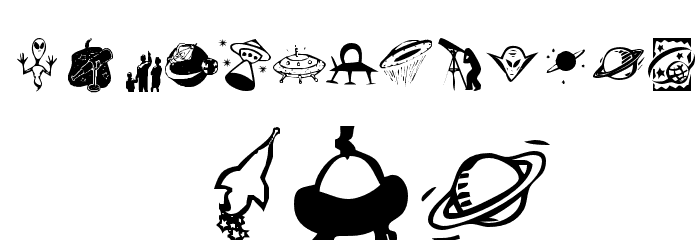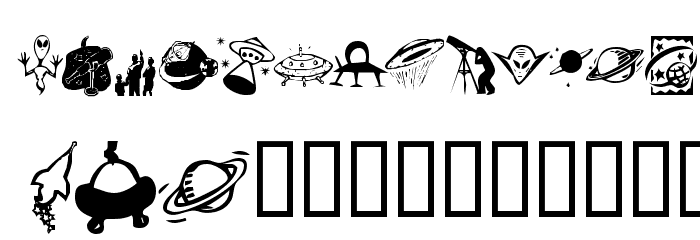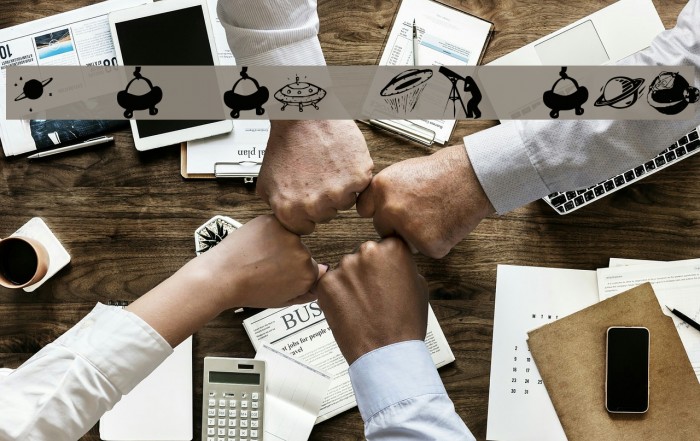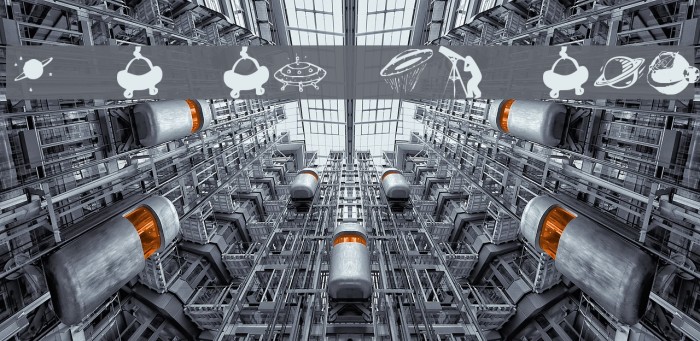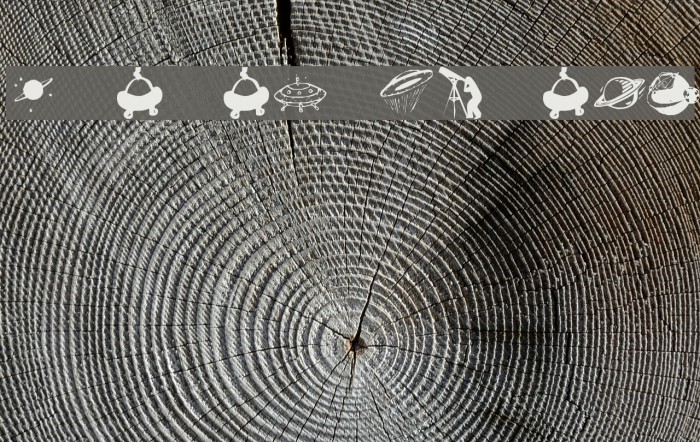
KR Out Of This World Font
This decorative font features a collection of whimsical, space-themed illustrations. Each character is a unique design, depicting elements such as aliens, spaceships, planets, and telescopes. The style is playful and imaginative, with bold lines and a cartoonish aesthetic. The font is not meant for traditional text but rather for creative projects where each character serves as an individual graphic element. The designs are detailed and varied, offering a wide range of extraterrestrial motifs that capture a sense of adventure and exploration.
A decorative font with playful, space-themed illustrations.
- Proposed Projects: Ideal for children's books, sci-fi themed posters, educational materials about space, and creative design projects seeking a whimsical touch.
- Use Case: Logos, Posters, Creative Illustrations